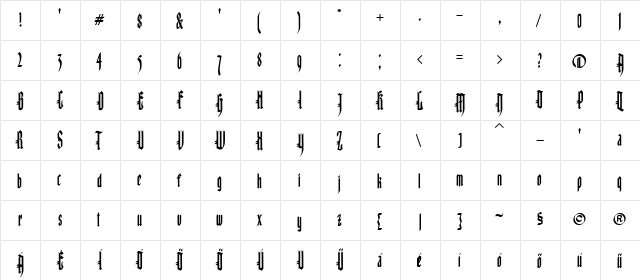
Kinizsi Frakturetta
Design Context for Kinizsi Typeface
Kinizsi channels the dramatic heritage of Fraktur and Gothic scripts, bringing a sense of historical gravitas to any design.
Well-suited to band logos, craft beer branding, tattoo lettering, and heritage-themed identities.
Font Pairing: Pair with a clean neutral sans-serif for body copy to let Kinizsi's character lead without overwhelming the composition.
Pro Tip: Use Kinizsi sparingly at large sizes. Even a single word set in blackletter can define the visual register of an entire design.